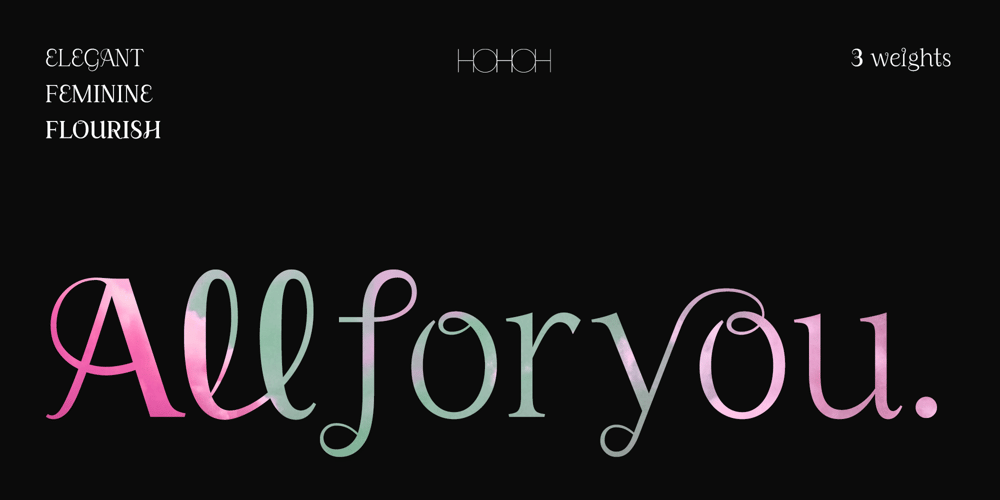
All for you
All for you font
All for you Font Family was designed by Saebom Lee and published by HOHOHtype. All for you contains 3 styles and family package options. ‘Allforyou’ is an elegant serif type family. The family has 3 different weights.It was designed to have the flexibility of italics in the form of serifs. It has a feminine and elegant feeling due to its smooth curves. It was designed with applications such as advertising and packaging, editorial and publishing, logo, branding and creative industries, poster and social media, and marketing in mind.